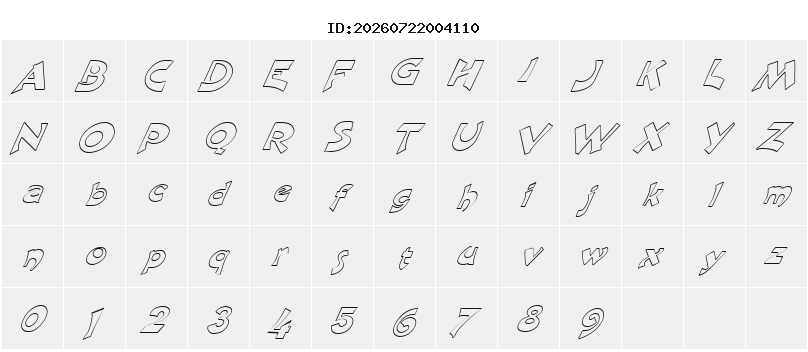
FZ JAZZY 11 HOLLOW ITALIC Preview
• Font Name: FZ JAZZY 11 HOLLOW ITALIC
• Full Font Name: FZ JAZZY 11 HOLLOW ITALIC
About FZ JAZZY 11 HOLLOW ITALIC.ttf
FZ JAZZY 11 HOLLOW ITALIC.ttf is a modern, elegant sans-serif font designed for ultimate readability and visual harmony. Perfect for branding, headlines, web design, and print materials.